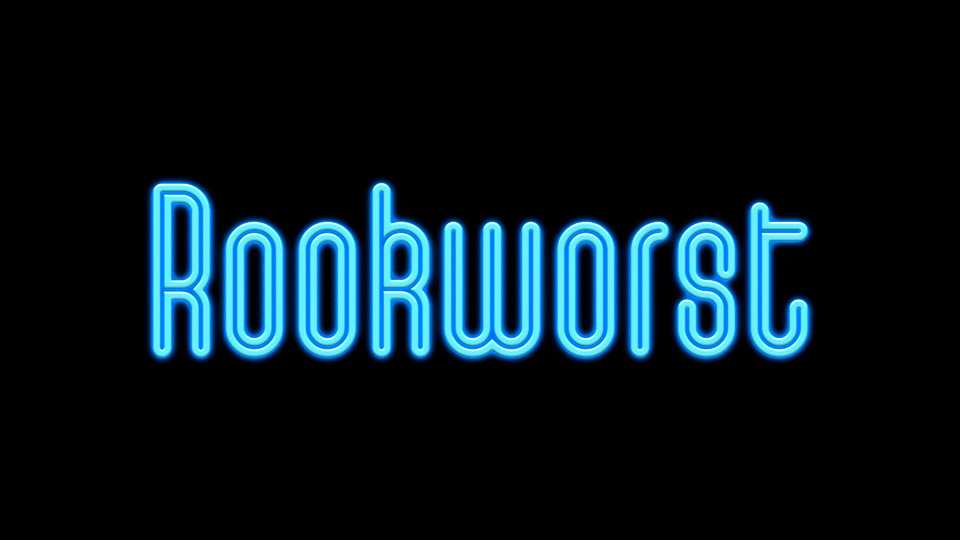
Download Rookworst font, a rounded outlined typeface with a retro aesthetic. Rookworst would look good on signage, packaging, magazines and posters.
Designer: Tup Wanders